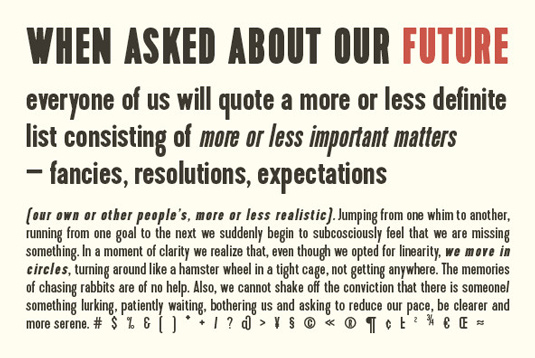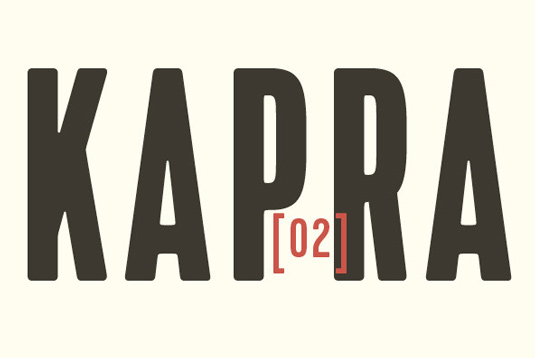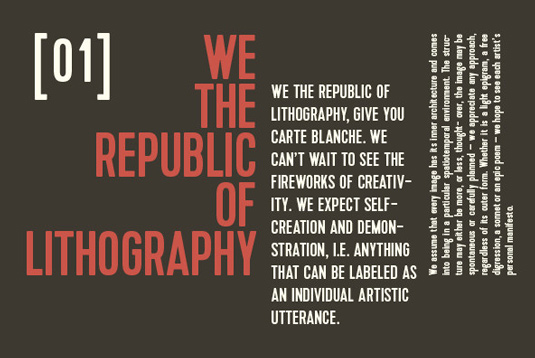
Font of the day: Kapra
Kapra by Blazej Ostoja Lniski
Today's font of choice, Kapra, was created by designer Blazej Ostoja Lniski. "To design Kapra, I was inspired by a You And Me Monthly published by National Magazines Publisher RSW 'Prasa' that appeared from May 1960 till December 1973 in Poland."